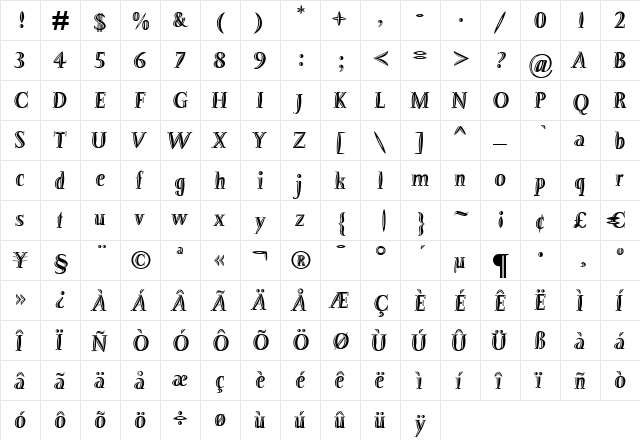
Barracuda Bold Relief Regular
Design Context for Barracuda Bold Relief Typeface
Barracuda Bold Relief offers clean, dependable letterforms without strong stylistic allegiance, making it a practical choice for designers who need flexibility. Its bold stroke weight gives it real presence on the page.